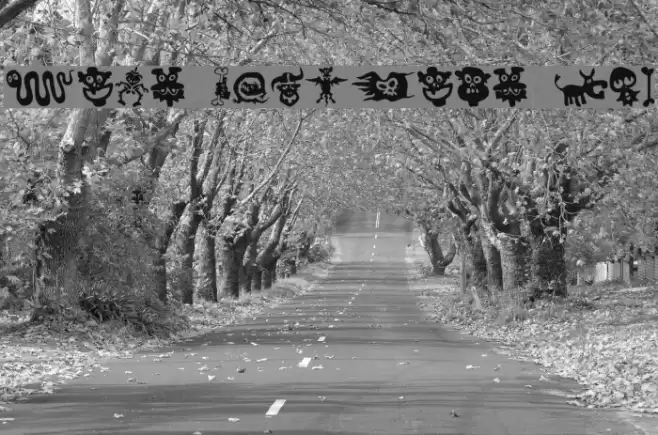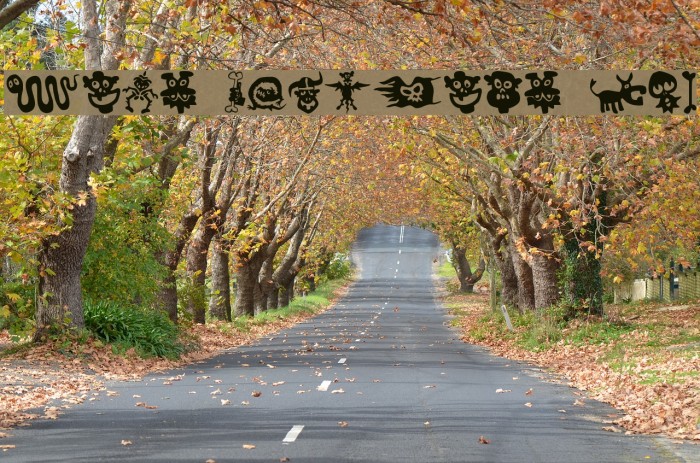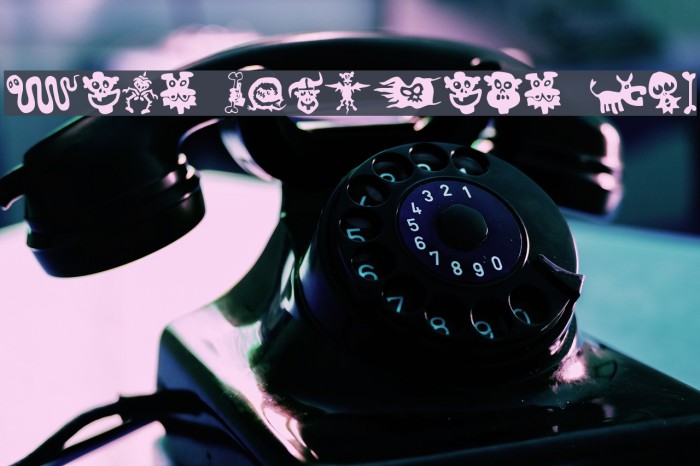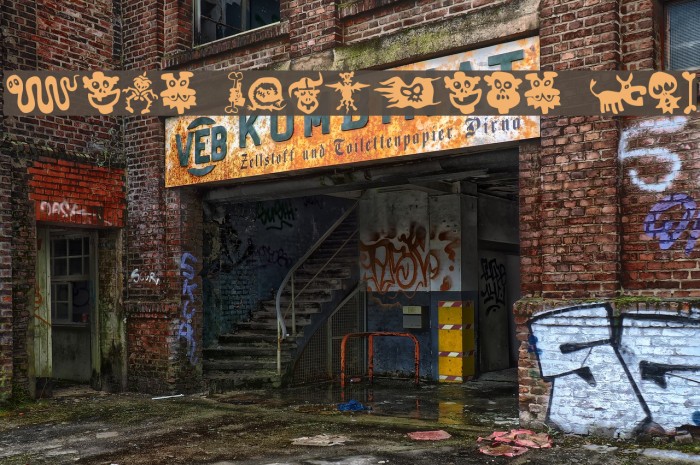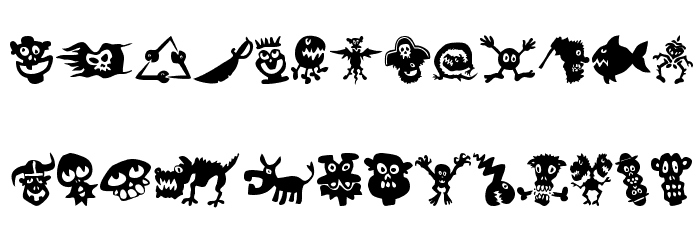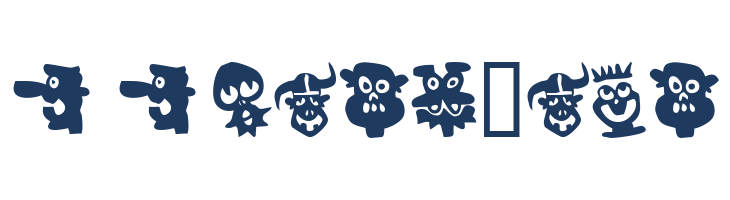
Sam's Dingbats No.1 Font
Sam's Dingbats No.1 Description
This is a decorative dingbat font featuring a variety of quirky and whimsical illustrations. The characters include a mix of playful and spooky elements such as skulls, monsters, animals, and abstract shapes. Each symbol is bold and filled, providing a strong visual impact. The designs are cartoonish and humorous, making them suitable for creative and fun projects. The font's unique style is characterized by its imaginative and artistic flair, offering a diverse range of symbols that can be used to add personality and charm to any design.
A whimsical dingbat font with quirky, cartoonish illustrations from Images & Symbols fonts.
- Proposed Projects: Ideal for Halloween-themed designs, children's books, playful posters, and creative branding projects.
- Use Case: Logos, Posters, Creative projects